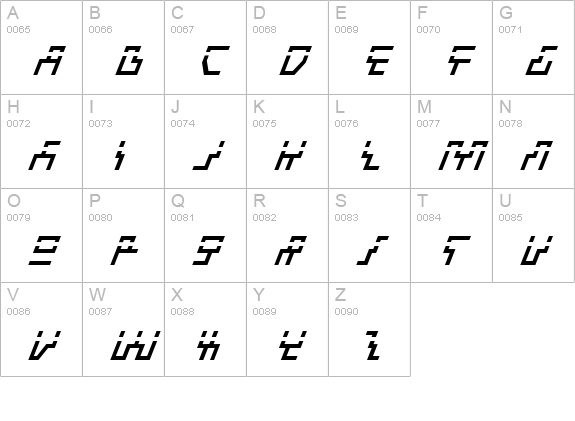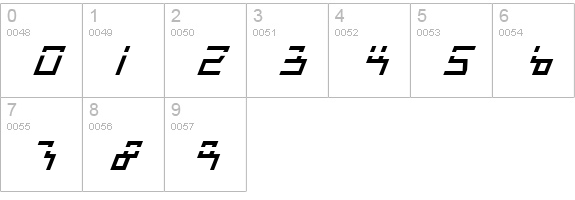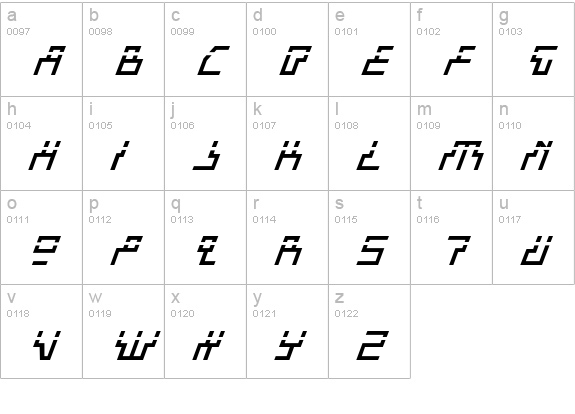
Beam Rider Italic Laser is a distinctive, italic variant in the Beam typeface family \xE2\x80\x94 well suited to design and typography projects.
Introducing Beam Rider Italic Laser font, a sleek and modern typeface that exudes a sense of futuristic sophistication. This font features unique laser-inspired italic letterforms that add a touch of edginess to any design project. With its sharp angles and dynamic energy, Beam Rider Italic Laser is perfect for creating eye-catching headlines, logos, and branding materials. Best of all, this font is available for free download at FontsMarket.com. Don't miss the opportunity to add this striking typeface to your collection and elevate your designs with its bold and contemporary style. Get ready to make a statement with Beam Rider Italic Laser font today!